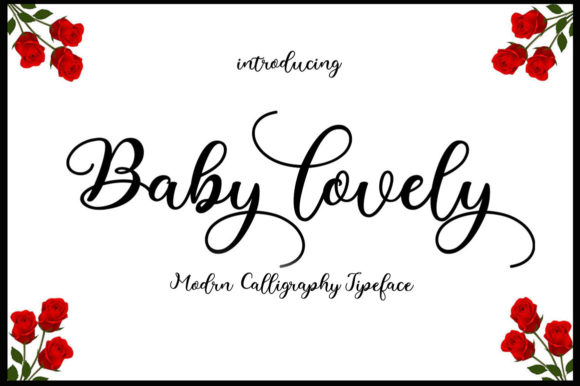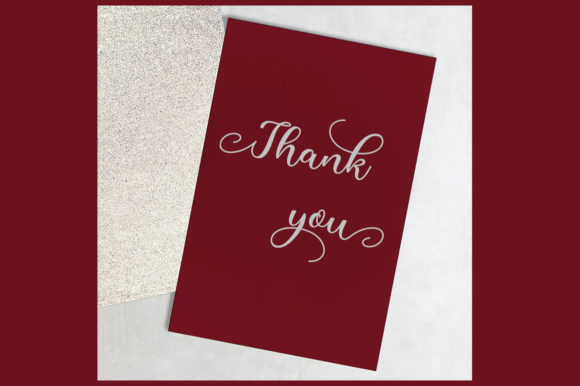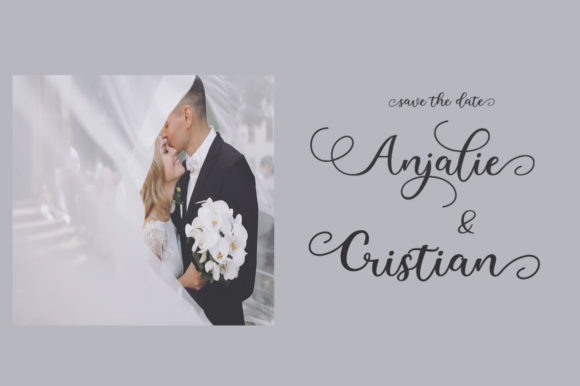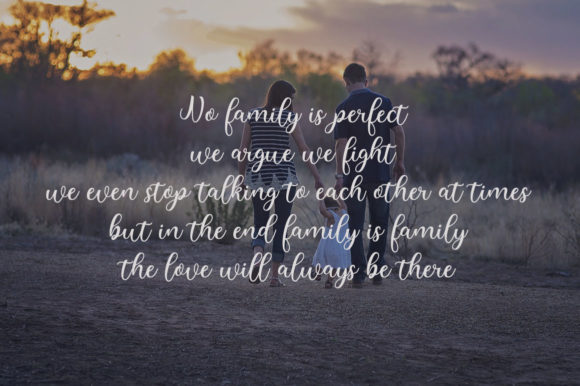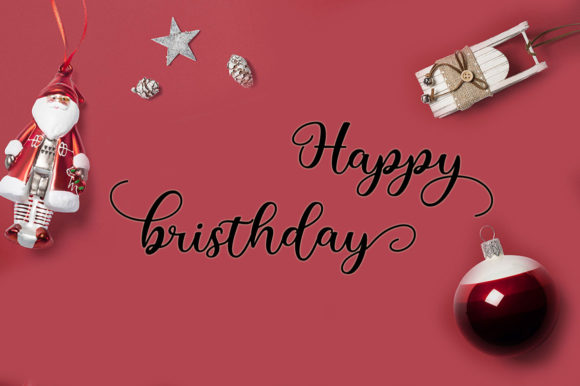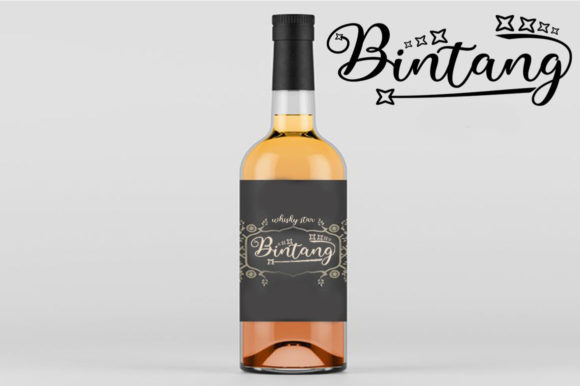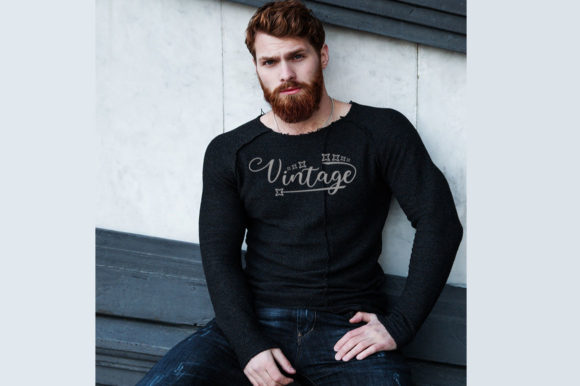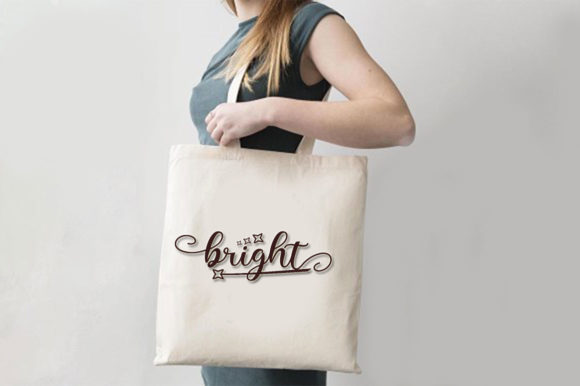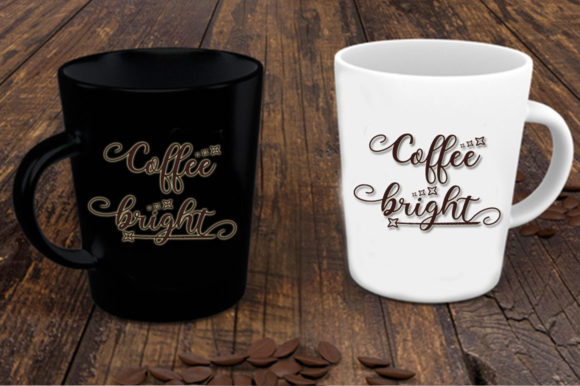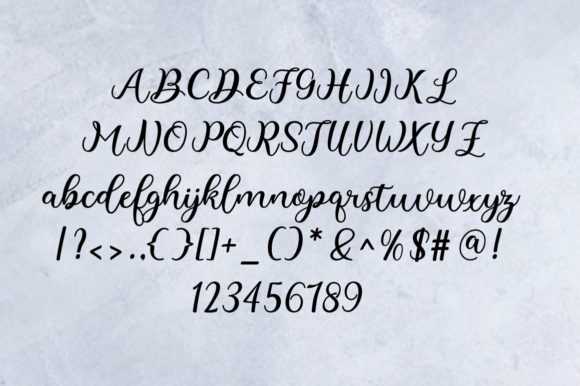
Baby Lovely Font
About Baby Lovely Font
Baby Lovely is a sweet, soft hand-lettered script. The playful rounded characters make it the perfect font for creating stunning arts & crafts projects. Baby Lovely comes packed with swashes, that will allow you to add a decorative touch within seconds. Get inspired by its authentic feel and use it to create gorgeous wedding invitations, beautiful stationary art, eye-catching social media posts, and cute greeting cards.